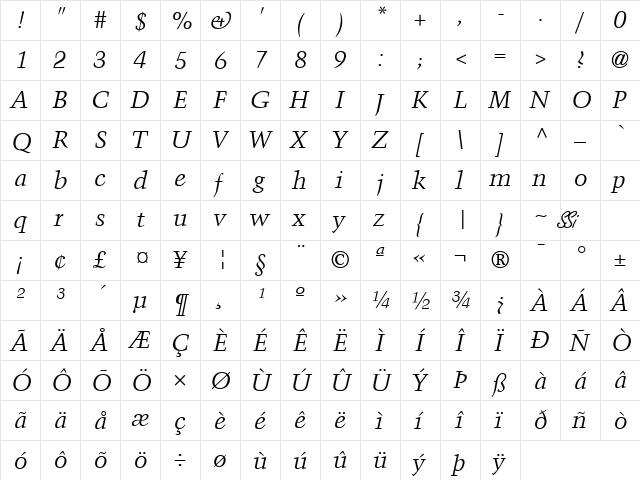
Blackford SSi Italic
Design Context for Blackford SSi Typeface
Blackford SSi offers clean, dependable letterforms without strong stylistic allegiance, making it a practical choice for designers who need flexibility. The dynamic lean of this cut emphasises speed and emphasis in any layout.
Pro Tip: Use Blackford SSi for emphasis, pull quotes, and subheadings where its slanted energy can add rhythm to the layout.